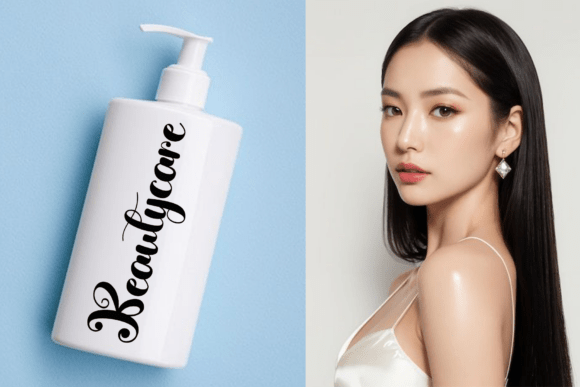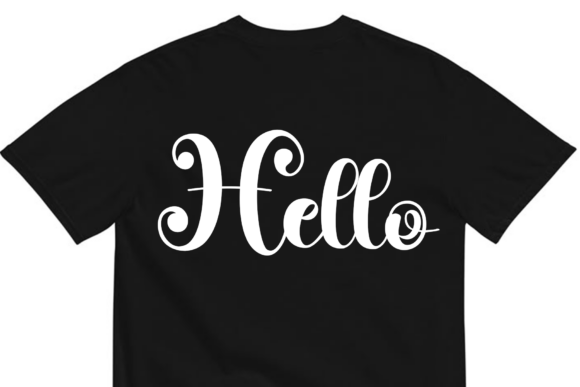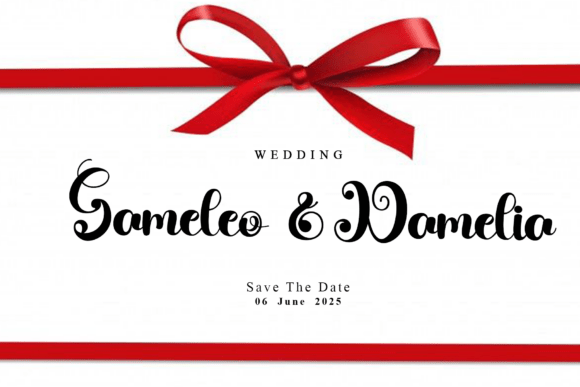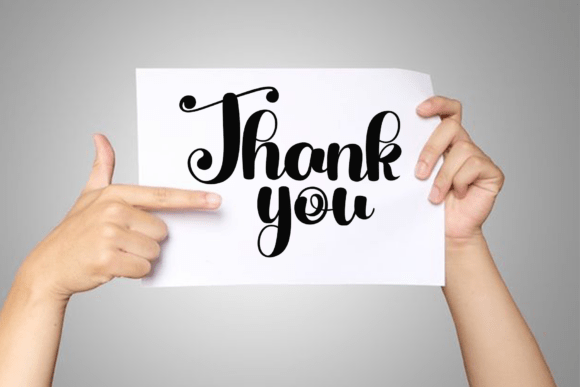
Introduction to Beauty Moana Font
Beauty Moana is a luxurious script font with dramatic swashes and elegant curves.
Inspired by classic calligraphy, this typeface is ideal for upscale branding, food packaging, wedding invitations, or any project that needs a touch of refined charm Its graceful flow and high contrast strokes give it a timeless, sophisticated fee.
Key Features of Beauty Moana Font